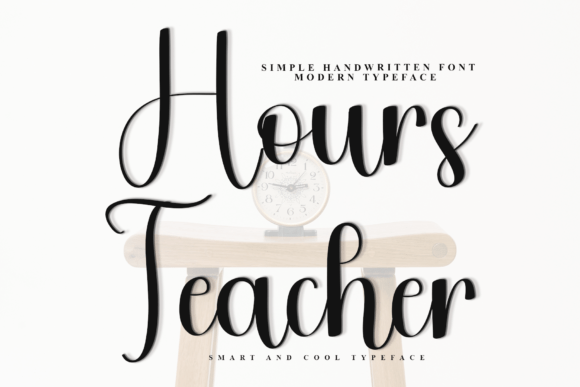
Introducing Hours Teacher Font: A Unique and Versatile Typeface
In the world of typography, fonts play a crucial role in conveying messages, expressing emotions, and creating visual identities. Among the numerous fonts available, Hours Teacher Font stands out for its distinctive and eye-catching design. This beautiful font is crafted with a soft, unique touch, making it perfect for various creative projects, from design and crafts to artistic expressions.
What Makes Hours Teacher Font Special?
Hours Teacher Font boasts a range of characteristics that set it apart from other fonts. Its distinctive strokes give it a special character, making it not only aesthetically pleasing but also meaningful and versatile for future use. The font features a wide range of characters, ensuring that it can be used in diverse contexts and applications.
Key Features of Hours Teacher Font
- Unique and Soft Design: Hours Teacher Font is designed with a soft, unique touch that gives it a distinctive look and feel.
- Distinctive Strokes: The font’s strokes are carefully crafted to give it a special character, making it stand out from other fonts.
- Versatile and Meaningful: The font’s design ensures that it can be used in various contexts, making it a valuable asset for designers and creatives.
- Wide Range of Characters: Hours Teacher Font features a comprehensive set of characters, making it suitable for use in different languages and applications.
Applications of Hours Teacher Font
Hours Teacher Font is an incredibly versatile typeface that can be used in a wide range of applications, including:
Design Projects
Whether you’re working on a logo, brochure, or website, Hours Teacher Font is an excellent choice. Its unique design ensures that your work will stand out and grab the attention of your audience.
Crafts and DIY Projects
Hours Teacher Font is perfect for crafters and DIY enthusiasts who want to add a personal touch to their projects. Use it to create handmade cards, invitations, or other paper crafts.
Artistic Expressions
Artists and illustrators will love Hours Teacher Font for its creative possibilities. Use it to add text to your artwork, create mixed-media pieces, or experiment with typography.
Digital Applications
Benefits of Using Hours Teacher Font
By incorporating Hours Teacher Font into your designs, you can enjoy several benefits, including:
Enhanced Visual Appeal
The font’s unique design ensures that your work will stand out and grab the attention of your audience.
Increased Versatility
Hours Teacher Font can be used in various contexts, making it a valuable asset for designers and creatives.
Improved Brand Identity
By using a distinctive font like Hours Teacher Font, you can create a strong brand identity that sets you apart from others.
Hours Teacher Font is a beautiful and eye-catching typeface that offers a unique touch to any design project. Its distinctive strokes, versatile design, and wide range of characters make it perfect for various creative applications. Whether you’re a designer, artist, or crafter, Hours Teacher Font is an excellent choice for enhancing your work and making it more appealing to your audience.